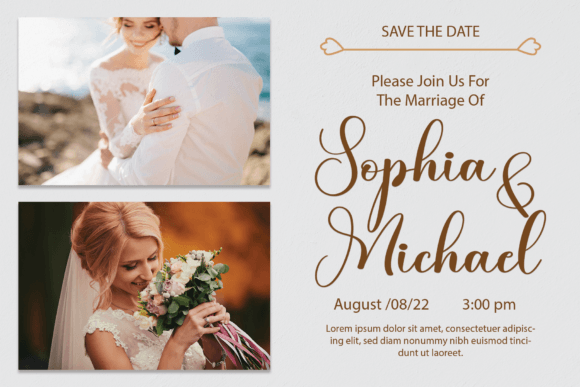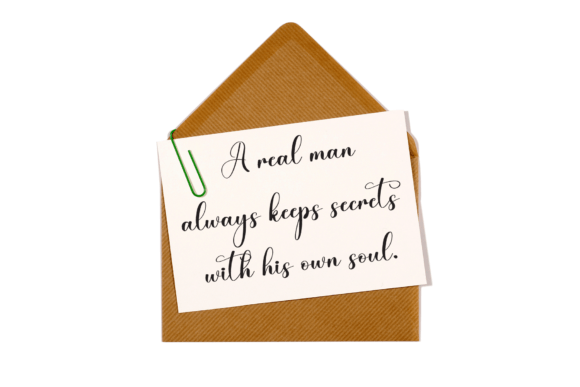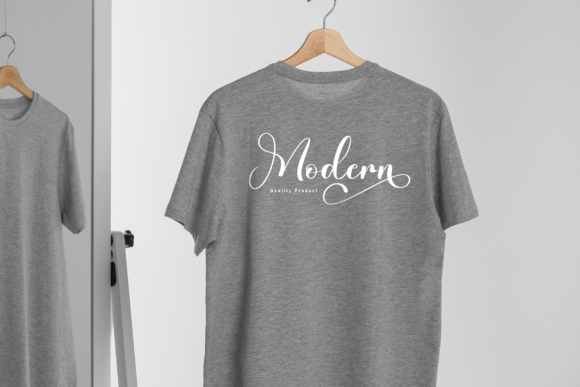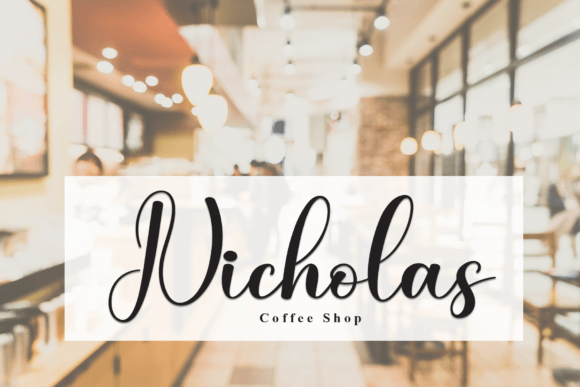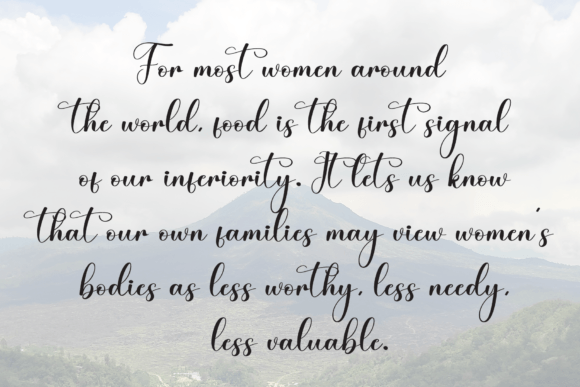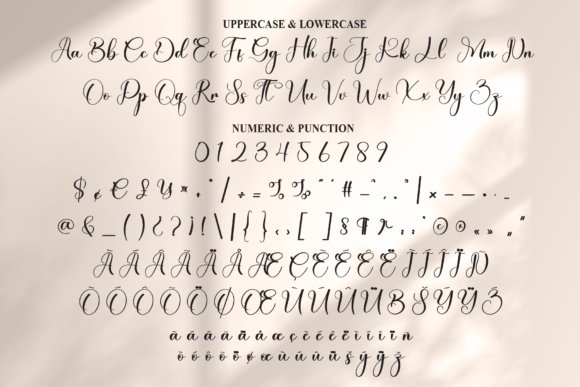
Eastern Font: Elevate Your Designs with Elegance and Whimsy
In the world of typography, few fonts manage to strike a balance between elegance and playfulness. Eastern Font is one such gem that seamlessly combines the sophistication of modern design with a touch of whimsy, making it an ideal choice for designers and crafters looking to add a bespoke, artisanal feel to their projects.
The Essence of Eastern Font
Eastern is a modern handwritten font that boasts fluid, organic strokes and refined letterforms. This unique blend of characteristics makes it perfect for upscale packaging, branding, and editorial designs where a touch of personality is desired. The font’s elegance is not just limited to its aesthetic appeal; its versatility allows it to adapt to various design contexts, ensuring that your projects stand out with a distinctive charm.
Key Features of Eastern Font
- Fluid, Organic Strokes: Eastern’s strokes are characterized by their smooth, flowing nature, which gives the font its whimsical feel. This fluidity ensures that the text looks approachable and friendly, yet sophisticated.
- Refined Letterforms: Each letter in the Eastern Font is carefully crafted to exude elegance. The refined letterforms contribute to the font’s upscale appearance, making it suitable for high-end designs.
- Versatility: Whether you’re working on packaging, branding, or editorial content, Eastern Font adapts beautifully. Its unique charm can elevate any project, adding a layer of sophistication and personality.
Applications of Eastern Font
The applications of Eastern Font are vast and varied. Here are a few ways designers and crafters can utilize this beautiful font:
- Upscale Packaging: Add a touch of luxury to your product packaging with Eastern Font. Its elegant and whimsical feel can make your products stand out on store shelves.
- Branding: Establish a unique brand identity with Eastern Font. Its distinctive charm can help your brand communicate its personality and values effectively.
- Editorial Designs: Whether you’re working on a magazine, blog, or book, Eastern Font can add a sophisticated touch to your editorial designs. Its readability and aesthetic appeal make it perfect for headings and titles.
Tips for Using Eastern Font Effectively
To make the most of Eastern Font, consider the following tips:
- Pair with Complementary Fonts: While Eastern Font is elegant on its own, pairing it with complementary fonts can enhance its beauty. Choose fonts that contrast with Eastern’s fluidity to create visual interest.
- Experiment with Colors: The right color scheme can elevate the look of Eastern Font. Experiment with different colors to find the perfect match for your design.
- Play with Sizes: Don’t be afraid to vary the font size to create a hierarchy of information. Larger sizes can be used for headings, while smaller sizes can be used for body text.
Eastern Font is a versatile and elegant typeface that can bring a bespoke, artisanal feel to any project. Its unique blend of fluid strokes and refined letterforms makes it perfect for designers and crafters looking to add a touch of whimsy and sophistication to their designs. Whether you’re working on upscale packaging, branding, or editorial content, Eastern Font is sure to elevate your projects with its graceful allure.
With Eastern Font, the possibilities are endless. Its ability to seamlessly combine elegance with a touch of whimsy makes it a valuable addition to any designer’s toolkit. So, get ready to transform your designs and bring a new level of sophistication and personality to your projects with Eastern Font.